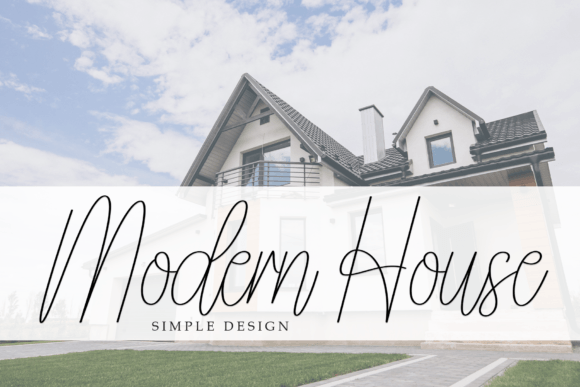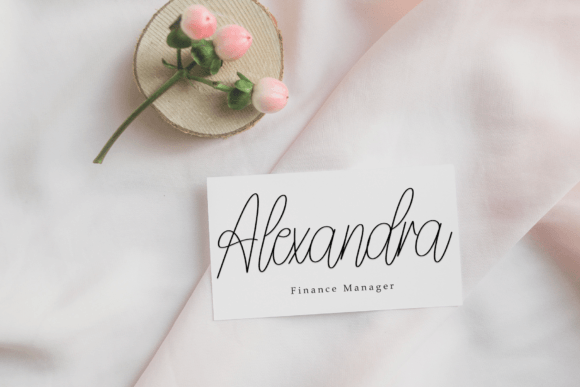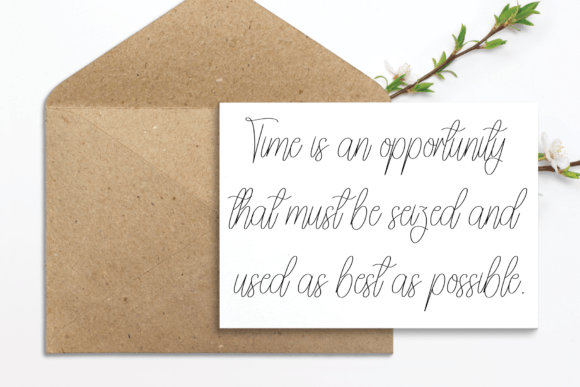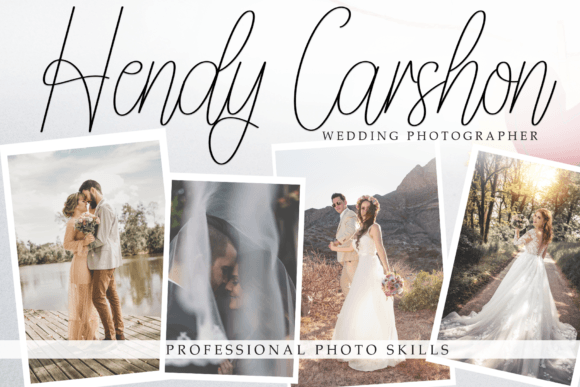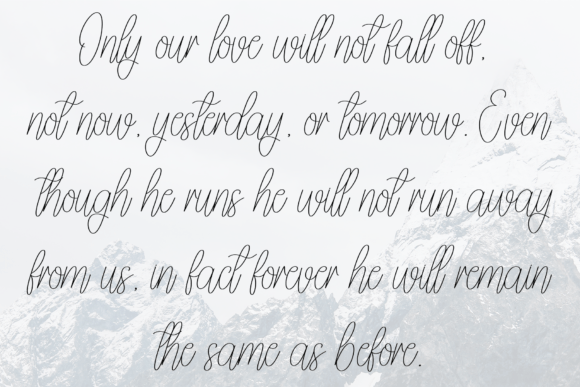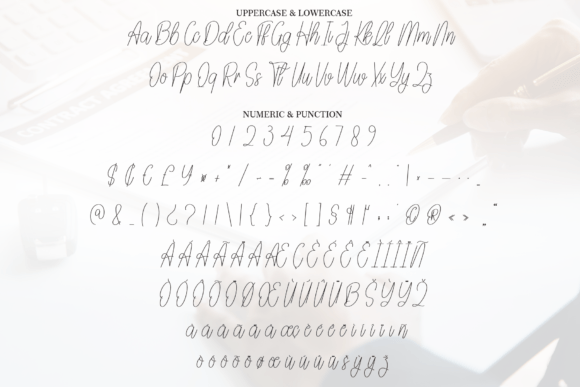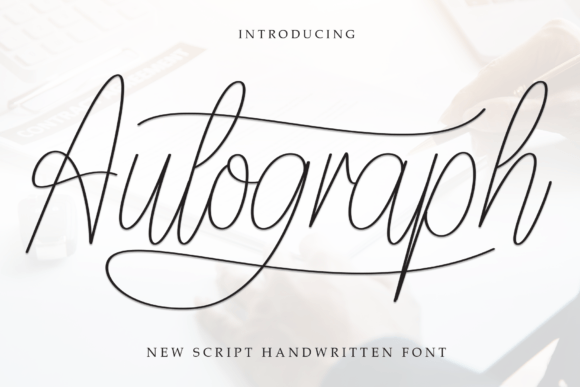
Introducing Autograph Font: The Perfect Addition to Your Design Arsenal
Are you a designer or crafter looking for a font that can add a touch of elegance and whimsy to your projects? Look no further than Autograph Font! This modern handwritten display font is the perfect choice for anyone who wants to create beautiful and eye-catching designs that stand out from the crowd.
What is Autograph Font?
Autograph Font is an elegant and modern handwritten display font that is designed to bring a touch of sophistication and fun to your designs. With its flowing lines and delicate curves, this font is perfect for creating wedding invitations, greeting cards, and other designs that require a personal touch.
Key Features of Autograph Font
• Elegant and Modern Design: Autograph Font features a sleek and contemporary design that is sure to impress. Its elegant lines and curves make it perfect for creating sophisticated designs that are both stylish and refined.
• Cute and Fun: Despite its elegant design, Autograph Font also has a playful and fun side. Its whimsical curves and lines make it perfect for creating designs that require a touch of personality and humor.
• Versatile: Autograph Font is incredibly versatile and can be used for a wide range of design projects, from wedding invitations and greeting cards to posters and social media graphics.
• Easy to Read: One of the key features of Autograph Font is its excellent readability. Even at small sizes, this font remains clear and easy to read, making it perfect for designs that require a lot of text.
Uses for Autograph Font
Autograph Font is an incredibly versatile font that can be used for a wide range of design projects. Here are just a few ideas to get you started:
• Wedding Invitations: Autograph Font is perfect for creating beautiful and elegant wedding invitations that set the tone for the big day.
• Greeting Cards: Whether you’re creating birthday cards, Christmas cards, or get-well cards, Autograph Font is a great choice for adding a personal touch.
• Posters and Flyers: Autograph Font can add a touch of elegance and sophistication to your posters and flyers, making them stand out from the crowd.
• Social Media Graphics: Autograph Font is also perfect for creating social media graphics, such as Facebook posts and Instagram stories, that require a touch of personality and style.
Tips for Using Autograph Font